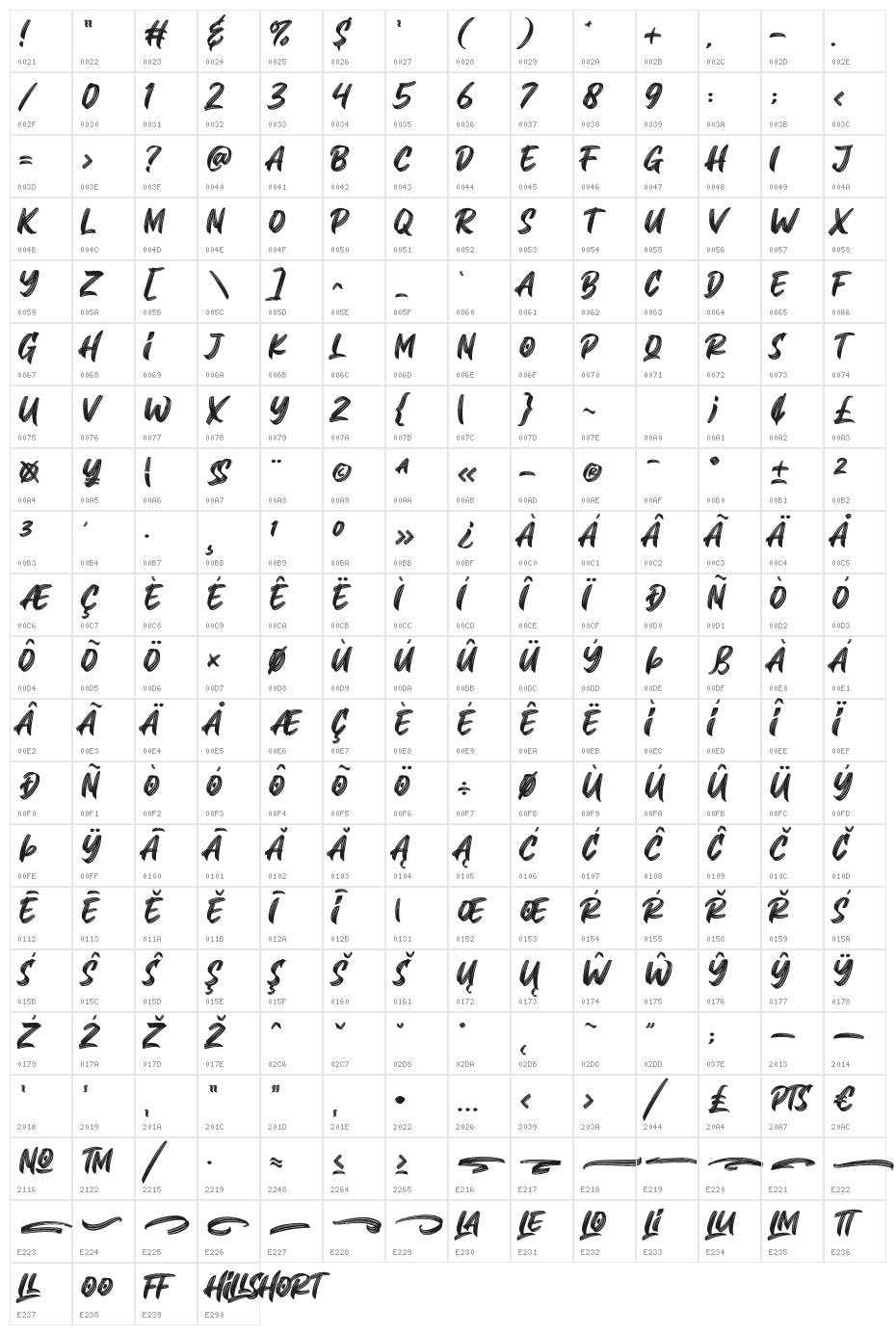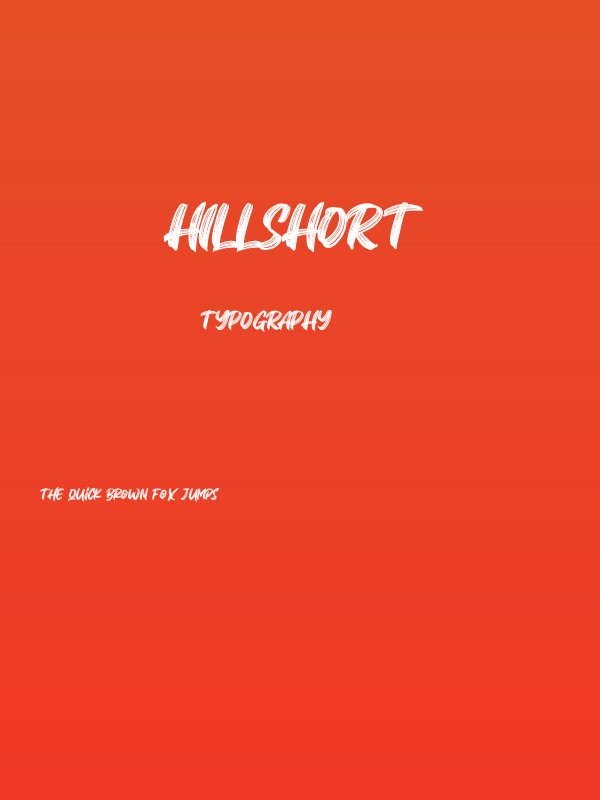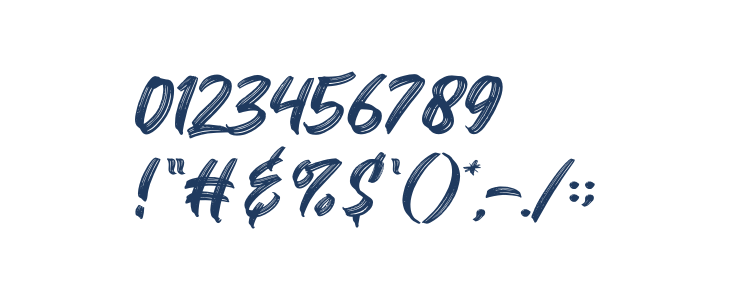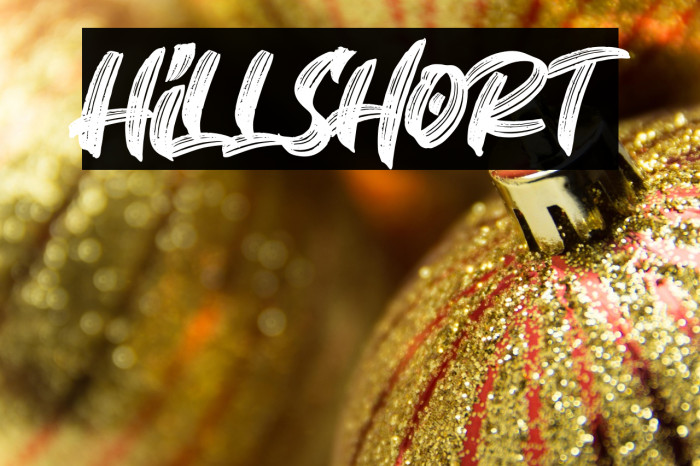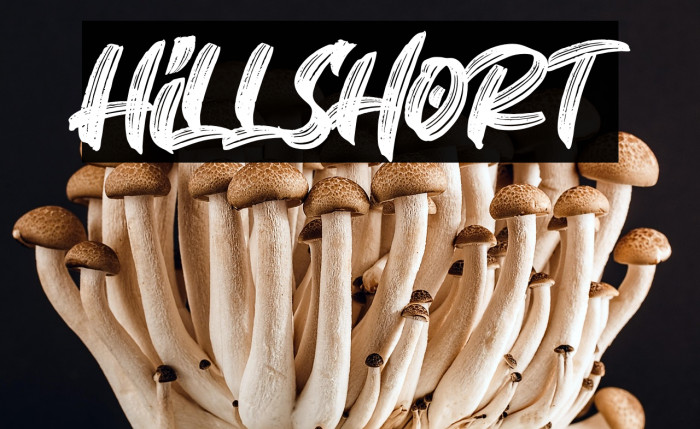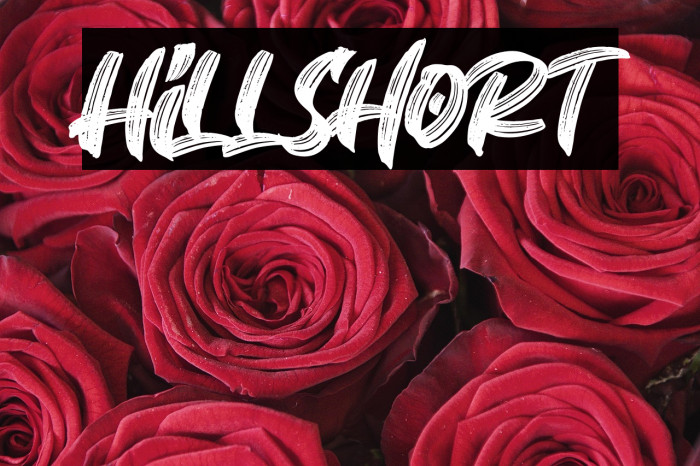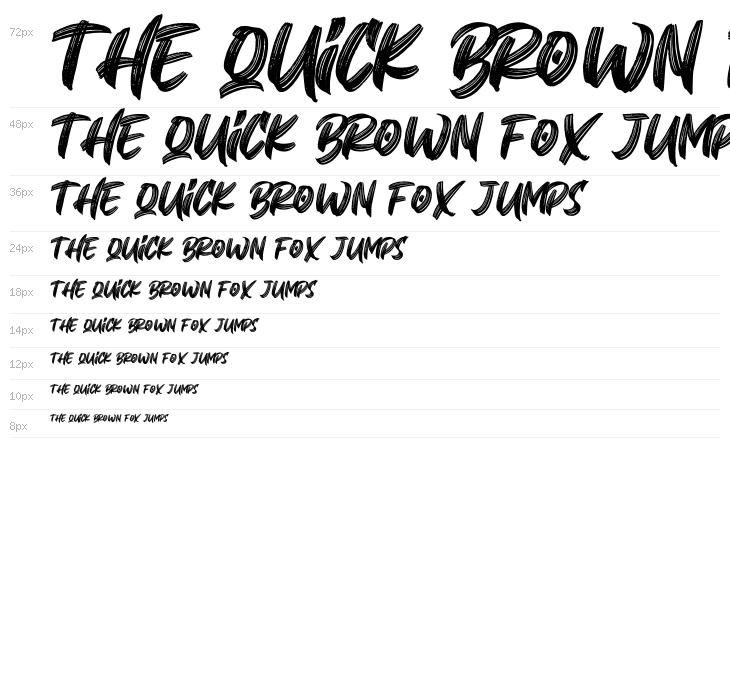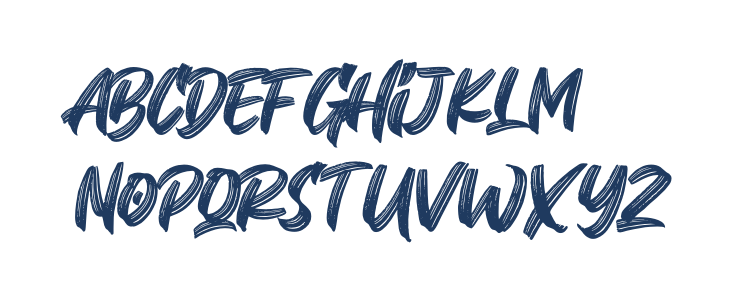
Hillshort Font
Hillshort Description
This font features a bold, energetic brush style that exudes a sense of dynamism and creativity. The strokes are thick and uneven, giving each character a hand-painted appearance. The uppercase and lowercase letters maintain a consistent flow, while the numbers and special characters are equally expressive. This font is perfect for projects that require a lively and artistic touch, such as posters, branding, or social media graphics. Its unique style makes it stand out, capturing attention with its vibrant and spontaneous feel.
| Proposed Projects | Ideal for posters, branding, social media graphics, and any project needing a lively, artistic touch. |